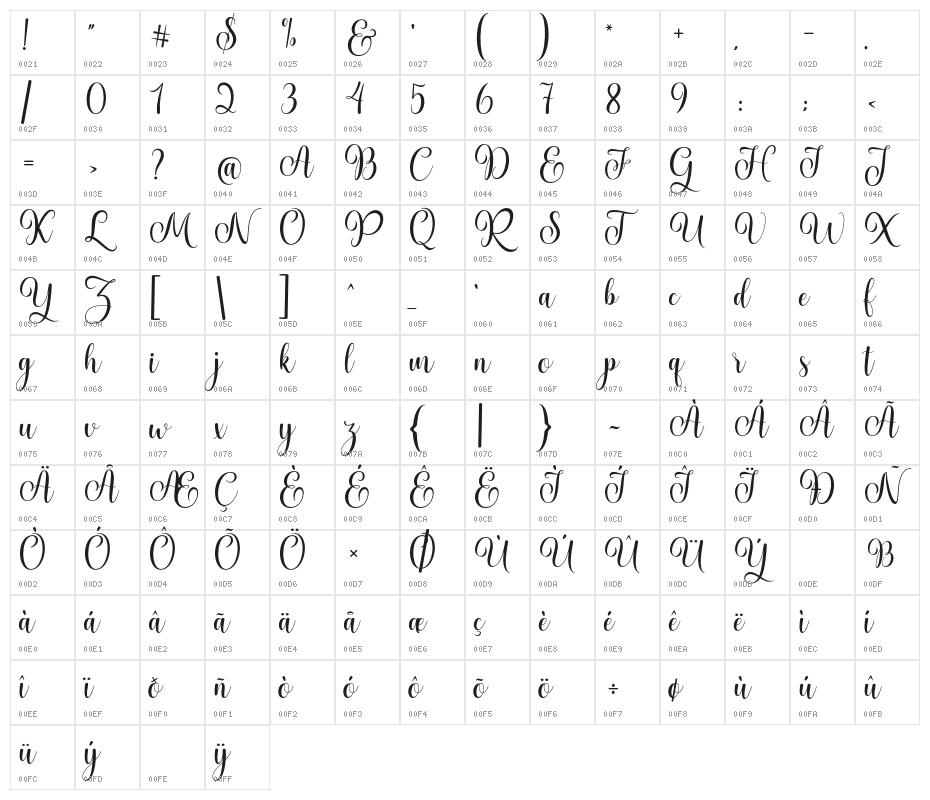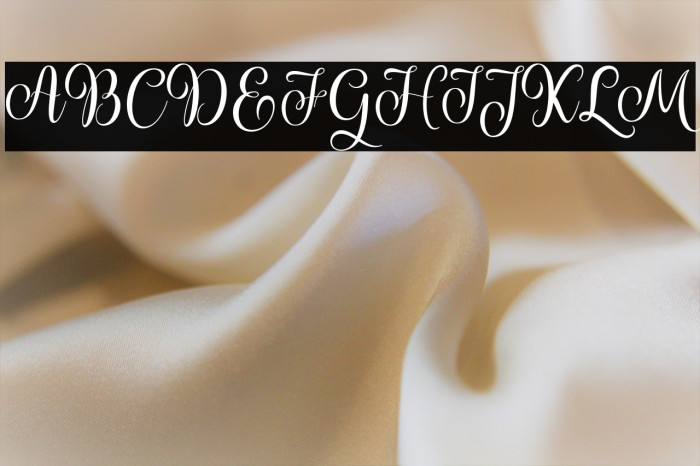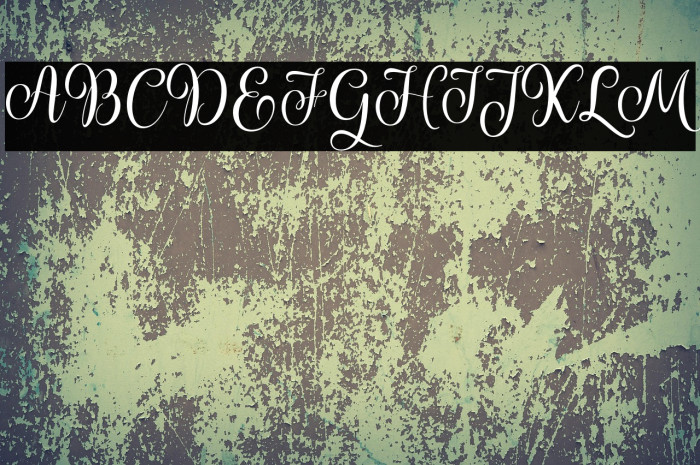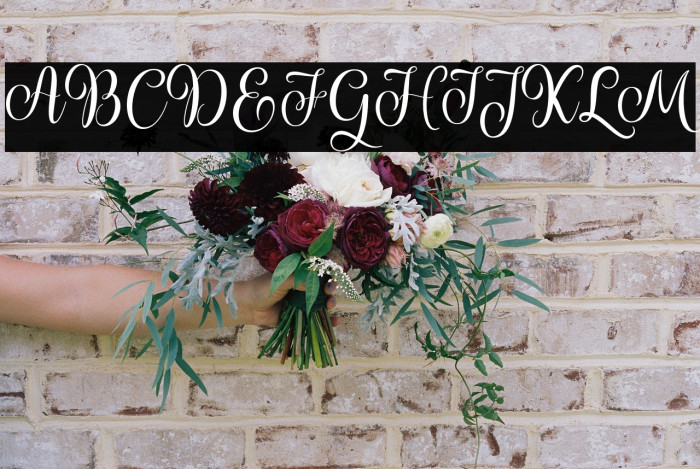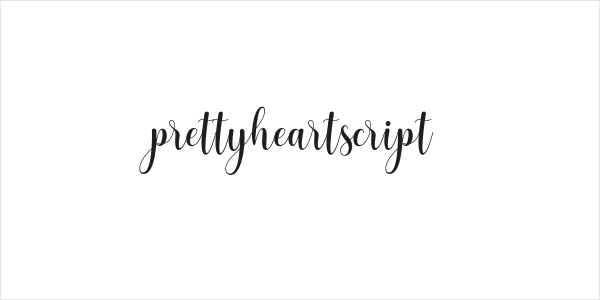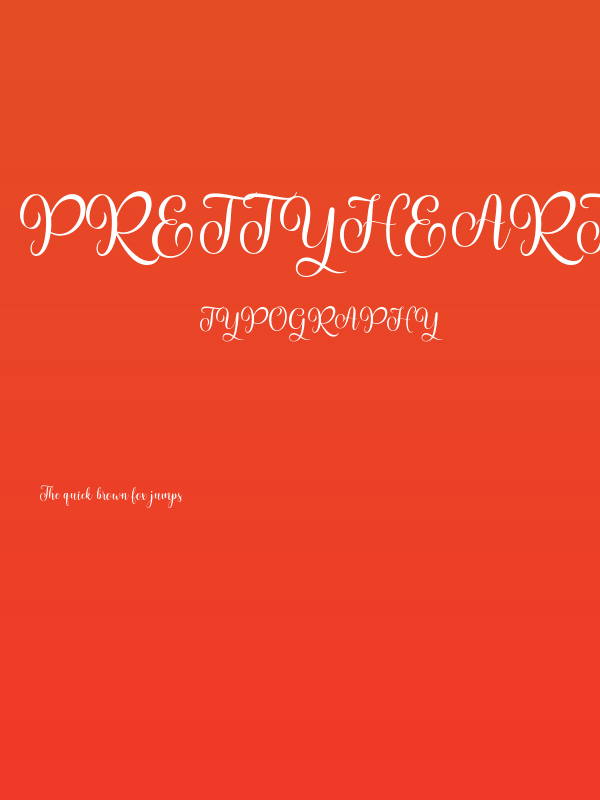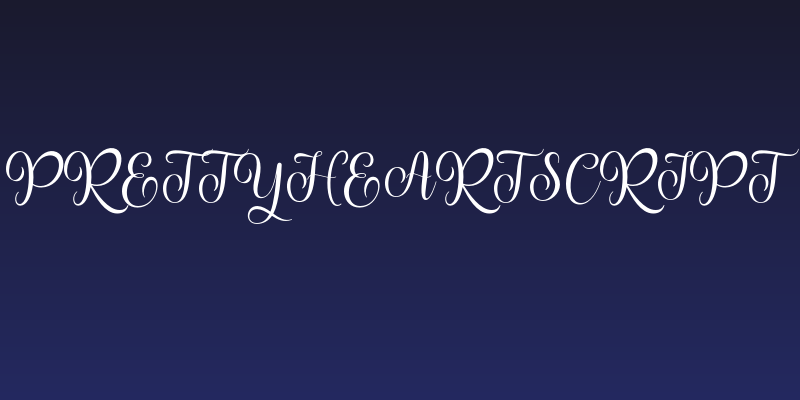
prettyheartscript Font
prettyheartscript Description
This elegant script font features flowing, interconnected letters that exude a sense of sophistication and grace. The uppercase letters are characterized by their sweeping curves and loops, while the lowercase letters maintain a consistent fluidity, making them perfect for creating a harmonious visual flow. The numerals and special characters are designed with the same attention to detail, ensuring a cohesive look across all elements. The font's high contrast between thick and thin strokes adds to its refined appearance, making it ideal for projects that require a touch of elegance and style.
Overall StyleElegant
Use CaseLogos, Invitations, Decorative text
Proposed ProjectsIdeal for wedding invitations, elegant branding, greeting cards, and upscale packaging design.